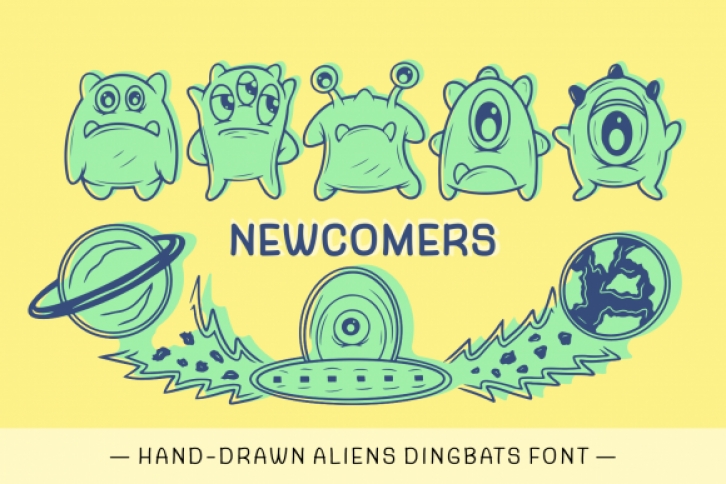
Newcomers is an out-of-this-world dingbats font that is comprised of many hand-drawn aliens. These cute alien dingbats are perfect to use as borders, dividers, and frames.